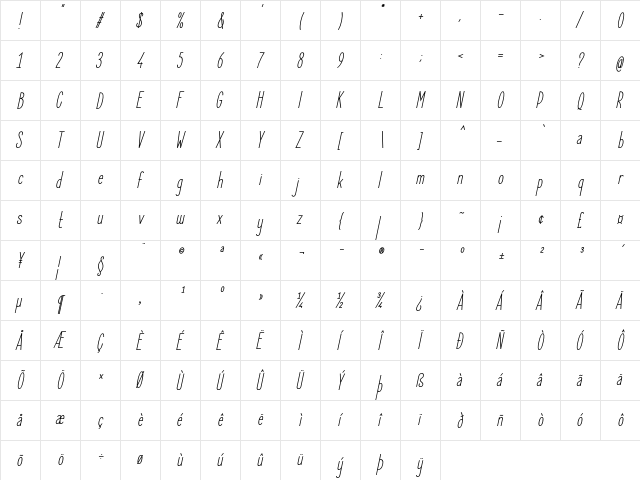
Elegant Sans Italic
Design Context for Elegant Sans Typeface
Elegant Sans offers clean, dependable letterforms without strong stylistic allegiance, making it a practical choice for designers who need flexibility. Its italic angle brings a sense of urgency and motion to the letterforms.
Pro Tip: Use Elegant Sans for emphasis, pull quotes, and subheadings where its slanted energy can add rhythm to the layout.